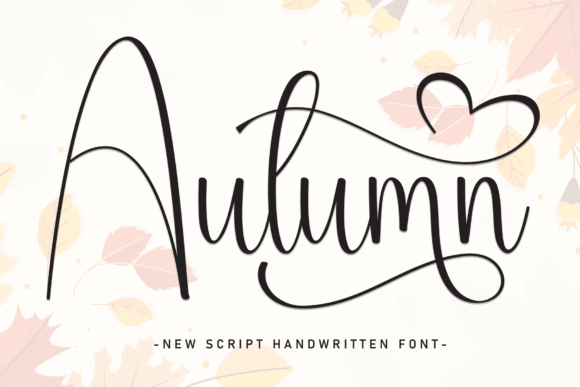
The Magic of Autumn Font: A Designer’s New Best Friend
I’ll never forget the time I was working on a wedding invitation project, and my client asked for a font that was “fun, yet elegant.” I scoured the internet, tried out a dozen fonts, but nothing seemed quite right. That was until I stumbled upon Autumn Font. This sweet and friendly handwritten display font has been a game-changer for my designs, and I’m excited to share its magic with you! ✨
An Honest Review of Autumn Font
- ✨ Cute and fun: Autumn Font is perfect for adding a playful touch to any design.
- ✅ Elegant and sophisticated: Despite its playful nature, this font still exudes a sense of elegance, making it suitable for wedding invitations, cards, and more.
- 💕 Handwritten charm: The font’s handwritten feel adds a personal touch to any design, making it perfect for projects that require a human touch.
While Autumn Font is an amazing font, there are a few things to keep in mind: 🤔
- ⚠️ Limited use in body text: Due to its decorative nature, Autumn Font is best used in headlines or titles, rather than body text.
- ⚠️ Some letter combinations may not work well: As with any font, some letter combinations may not work as well as others. Be sure to test the font with your specific text.
The Story Behind Autumn Font
Autumn Font was designed by a talented type designer who wanted to create a font that captured the warmth and coziness of the autumn season. Inspired by the changing leaves, crisp air, and cozy sweaters, this font is perfect for adding a touch of autumnal charm to your designs.
Q: What is Autumn Font?
A: Autumn Font is a sweet and friendly handwritten display font perfect for adding a playful touch to your designs.
Q: What can I use Autumn Font for?
A: Autumn Font is ideal for writing wedding invitations, cards, or any other design that might need a fun touch!